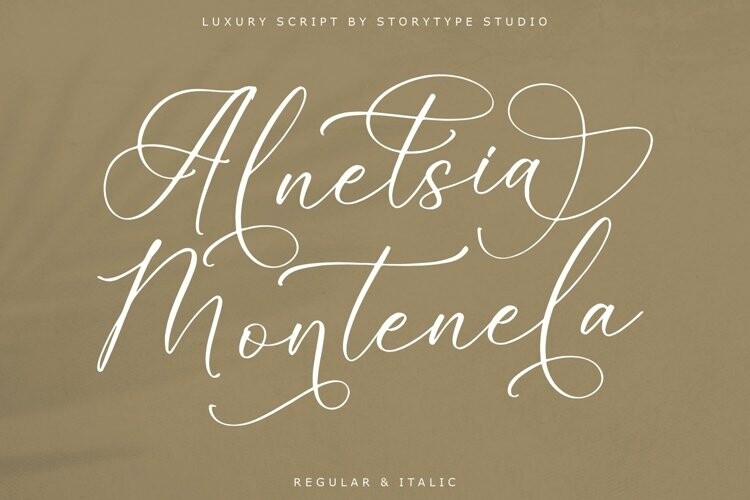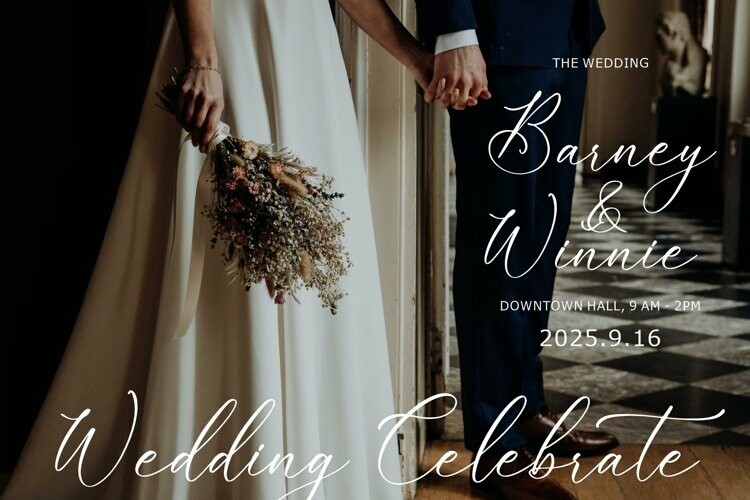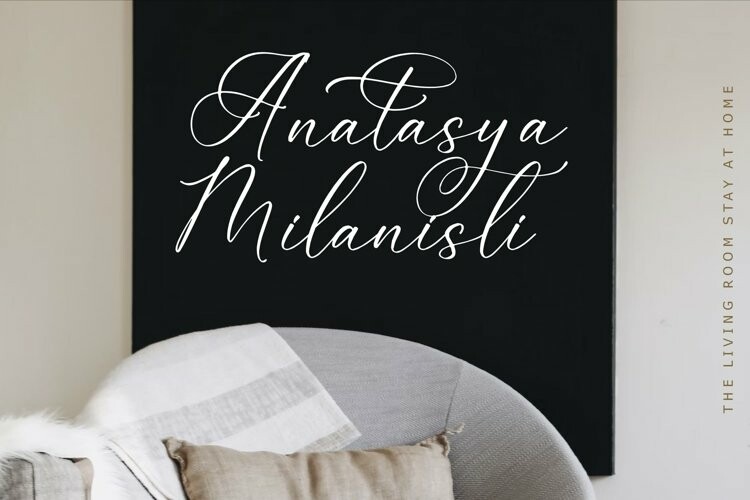
Alnetsia Montenela Font
Alnetsia Montenela FontProudly present Alnetsia Montenela – Luxury Script , created by Storytype,
A luxury script that has own unique style & modern look.
This typeface is perfect for an elegant & luxury logo, book or movie title design, fashion brand, magazine, clothes, lettering, quotes, and so much more.